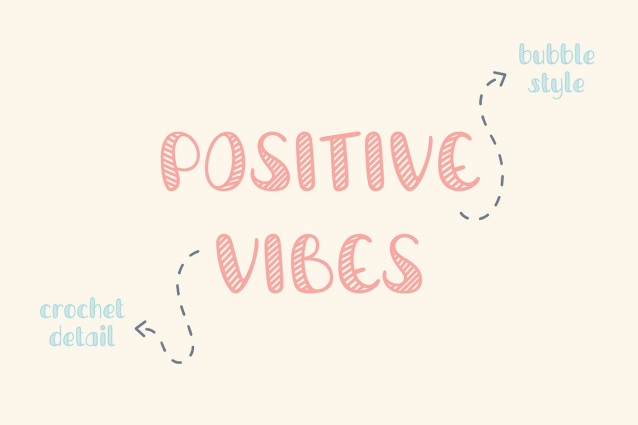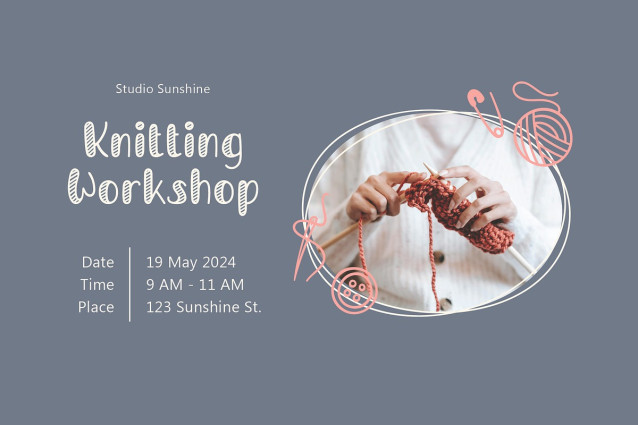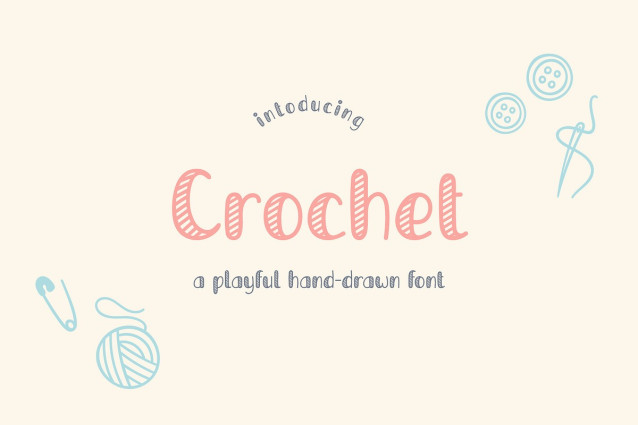
PGR Crochet Font
PGR Crochet Font is carefully crafted to resemble a crochet stitch, giving your text a unique and playful touch.Crochet is more than just a font – it’s a way to add a personal touch to your designs. With its handmade feel and whimsical vibe, this font is perfect for creating one-of-a-kind greeting cards, posters, stickers, and more!